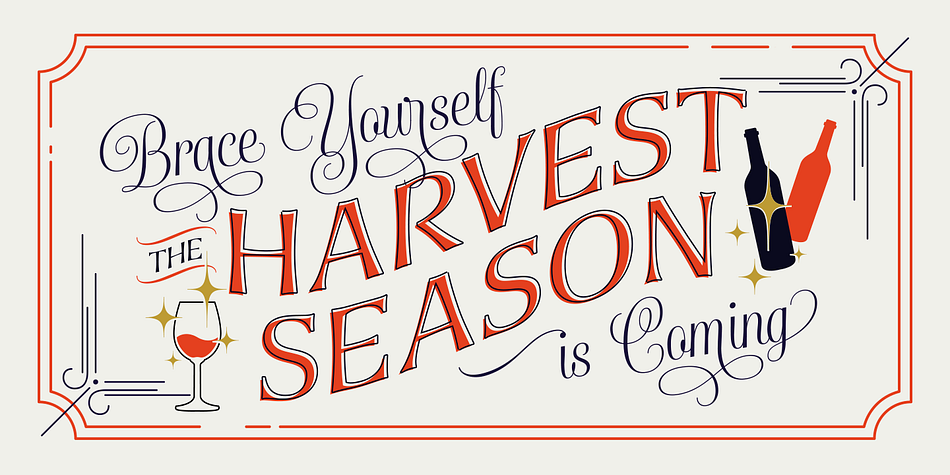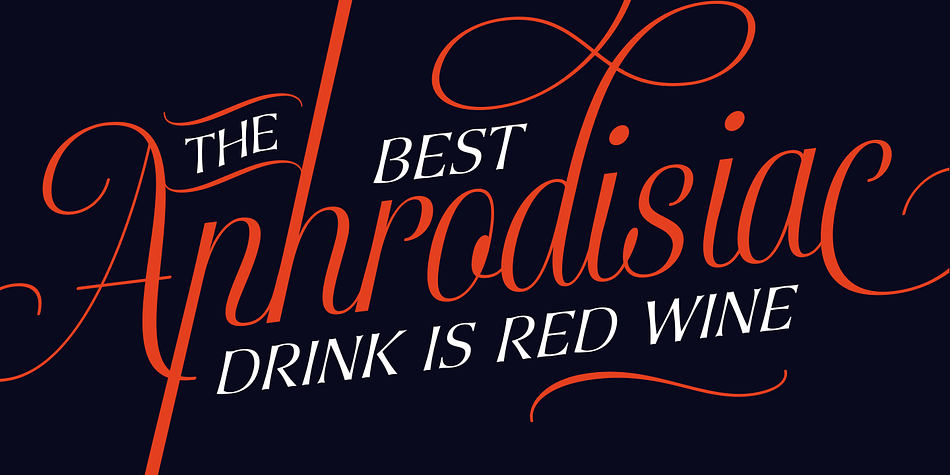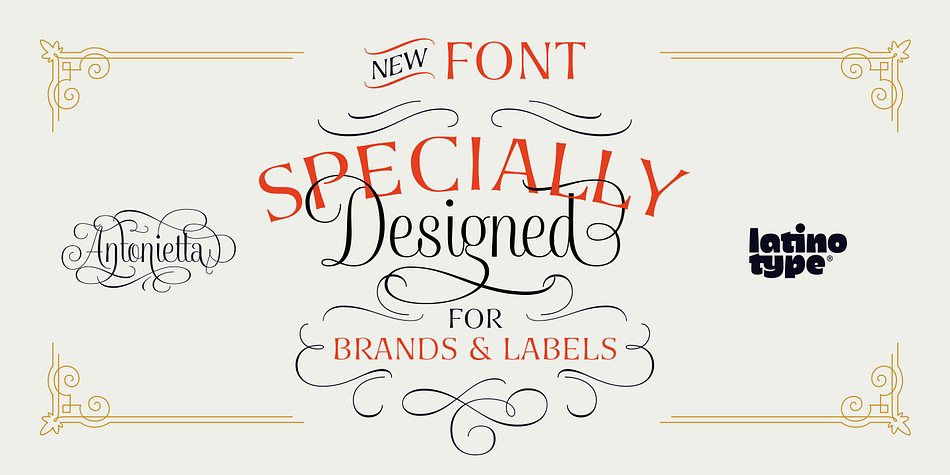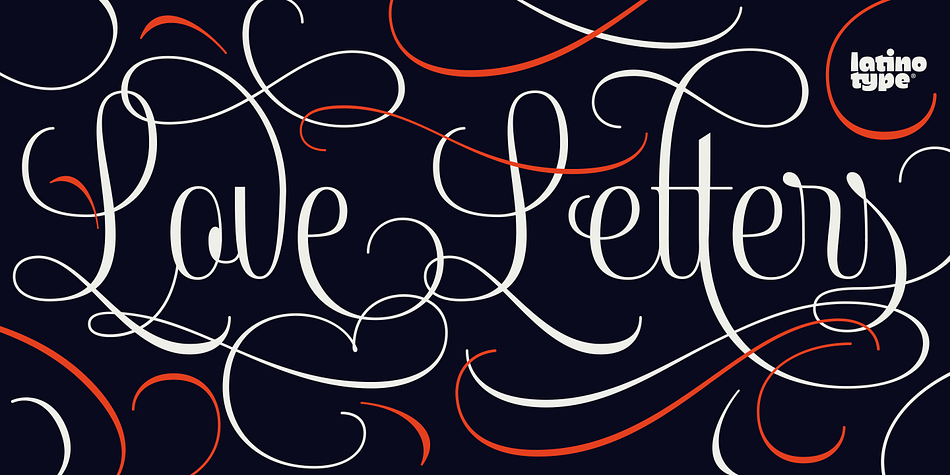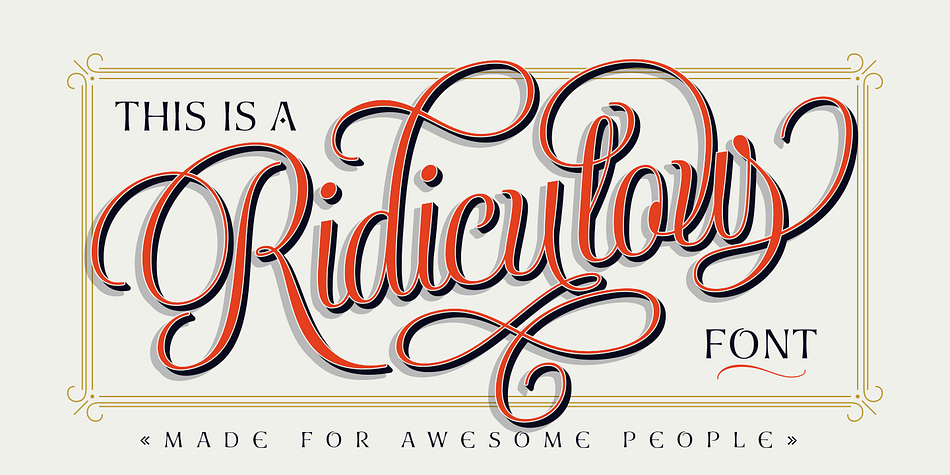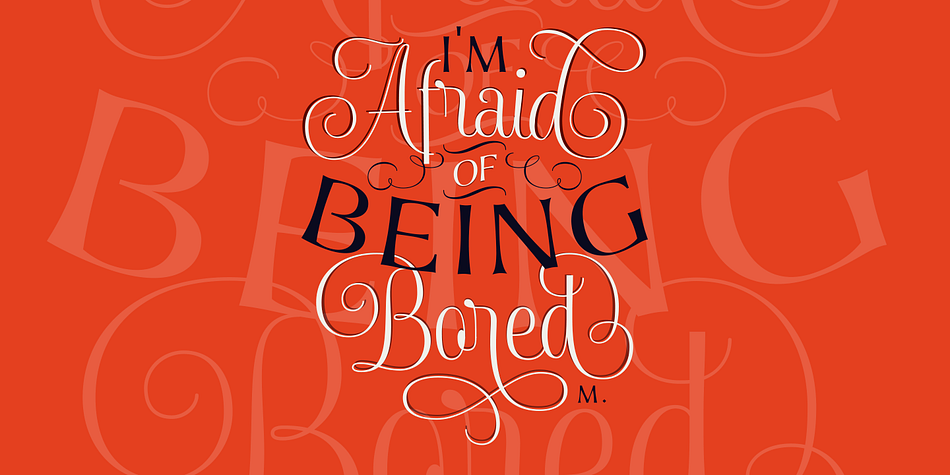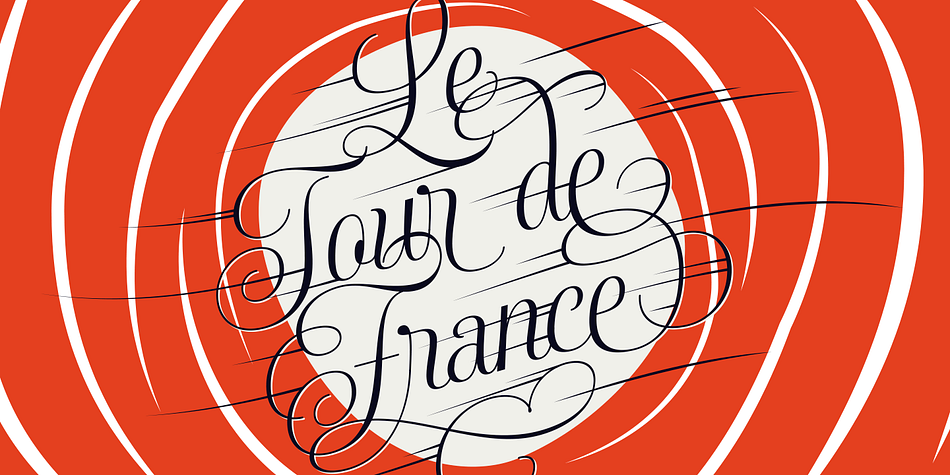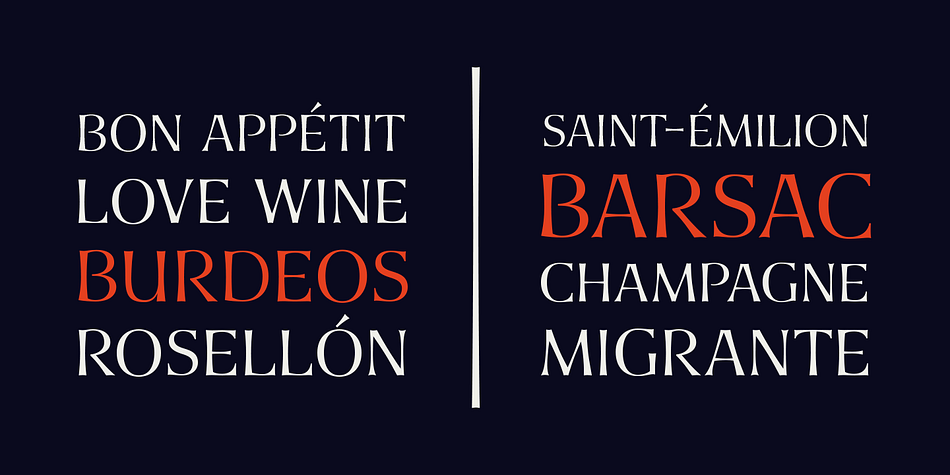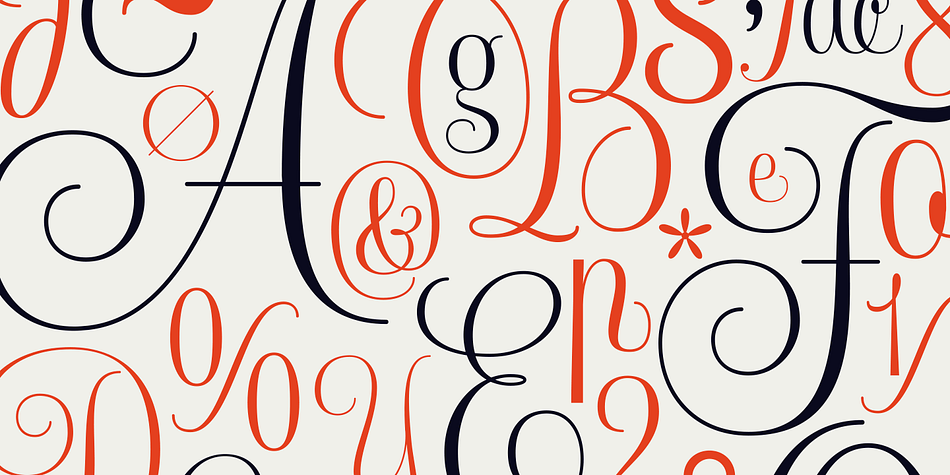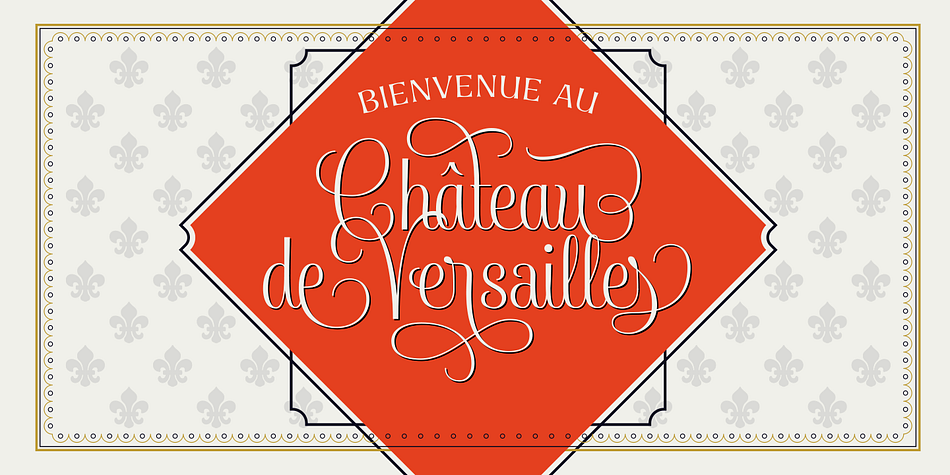
Designed by Mauricio Astete Brito, Antonietta is a dingbat, script and display sans font family. This typeface has seven styles and was published by Latinotype.
Antonietta is Mauricio Astete Brito’s first typeface, which is inspired by the eccentricity of the rococo style and Queen Marie Antoinette’s wild personality. This project, supervised by Latinotype Team, was born from the idea of turning lettering into a digital typeface. Antonietta is based on the Copperplate style and inspired by the works of, among others, Hermann Zapf, Ricardo Rousselot and Herb Lubalin.
The font comes in the following variants: Antonietta Script, Antonietta Caps, Antonietta Caps Illuminated, Antonietta Caps Shadow, Antonietta Caps Inline and Antonietta Ornaments.
Antonietta Script is characterised by a big x-height, condensed proportions, and short ascenders and descenders, which can be modified by using the contextual alternates included in the set. Antonietta Caps, a companion font to the Script, is an all-caps typeface with rational structure and high contrast between thin and thick strokes.
Antonietta is a 7-weight typeface well-suited for logotypes, labelling, headlines and short text. The Script variant contains a set of 878 characters that provide a wide range of contextual alternates to fit any project. The typeface also comes with an ‘Ornaments’ variant, which includes dingbats, borders and catchwords that complement the rest of the fonts.